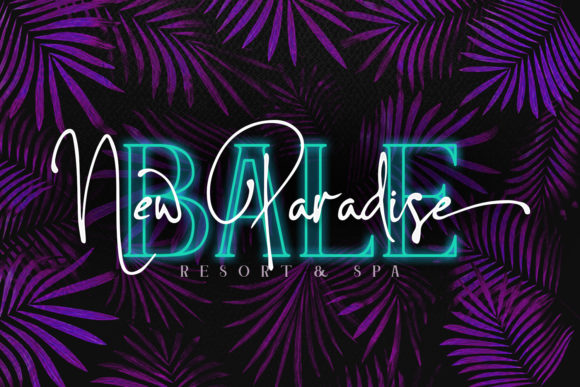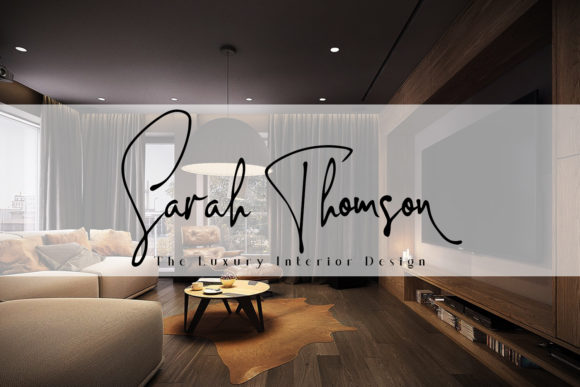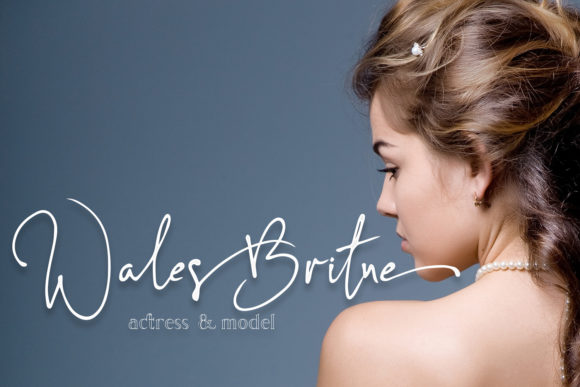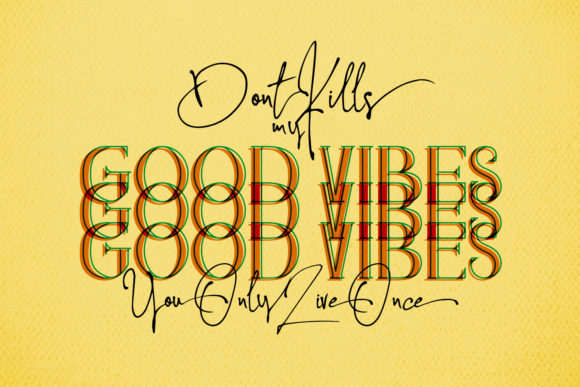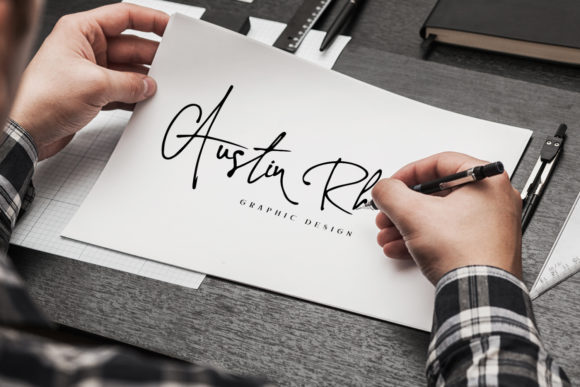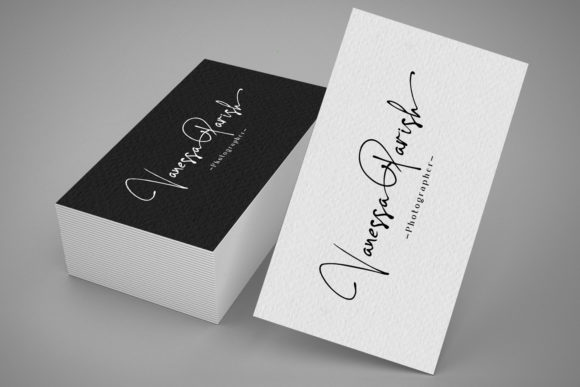
Bring Your Designs to Life with the Ultimate Duo Font
Remember that moment when a spark of creativity strikes, and you envision a stunning visual identity that captures the essence of your brand? For designers, this feeling is what drives us to push boundaries and create something truly remarkable. And, when it comes to elevating our designs to new heights, having the right tools is crucial.
Enter the Concetta Kalvani Font, a spectacular duo font that combines the elegance of serif with the flair of script. This incredibly versatile font is the perfect companion for designers looking to add a touch of sophistication to their work. Whether you’re crafting a logo, creating a brochure, or designing a website, the Concetta Kalvani Font is sure to make your designs shine.
Concetta Kalvani Font Key Features
- Font Family: Concetta Kalvani Font, a beautiful and elegant script font designed for professional use.
- Unique Characteristics: Features a unique, flowing script style with intricate details, making it perfect for invitations, wedding stationery, and other formal designs.
Concetta Kalvani Font Review
As a designer, I had the opportunity to work with the Concetta Kalvani Font, and I must say it’s a beautiful addition to any typography-based project. ✨ The elegant and sophisticated look of this font makes it perfect for luxury brands, high-end fashion, or any project that requires a touch of sophistication.
The Concetta Kalvani Font features a wide range of weights, from Light to Bold, which provides a great deal of flexibility in terms of usage. ✨ The font also has a beautiful script and cursive style, making it perfect for creating eye-catching headlines and titles.
However, there are some limitations to consider. ⚠️ The font may not be suitable for body text, as it can be quite difficult to read in smaller sizes. Additionally, the font may not be as versatile as some other fonts in terms of pairing with other fonts or styles.
- ✨ Elegant and sophisticated look
- ✨ Wide range of weights
- ✨ Beautiful script and cursive style
- ⚠️ Not suitable for body text
- ⚠️ May not be as versatile as other fonts
Overall, I think the Concetta Kalvani Font is a great addition to any designer’s toolkit. While it may have some limitations, its unique and sophisticated look makes it perfect for certain types of projects.
Concetta Kalvani Font is ideal for:
- Designing elegant and sophisticated documents (e.g., wedding invitations, business cards).
- Creating visually appealing social media graphics and ads.
- Adding a touch of luxury to presentations and reports.